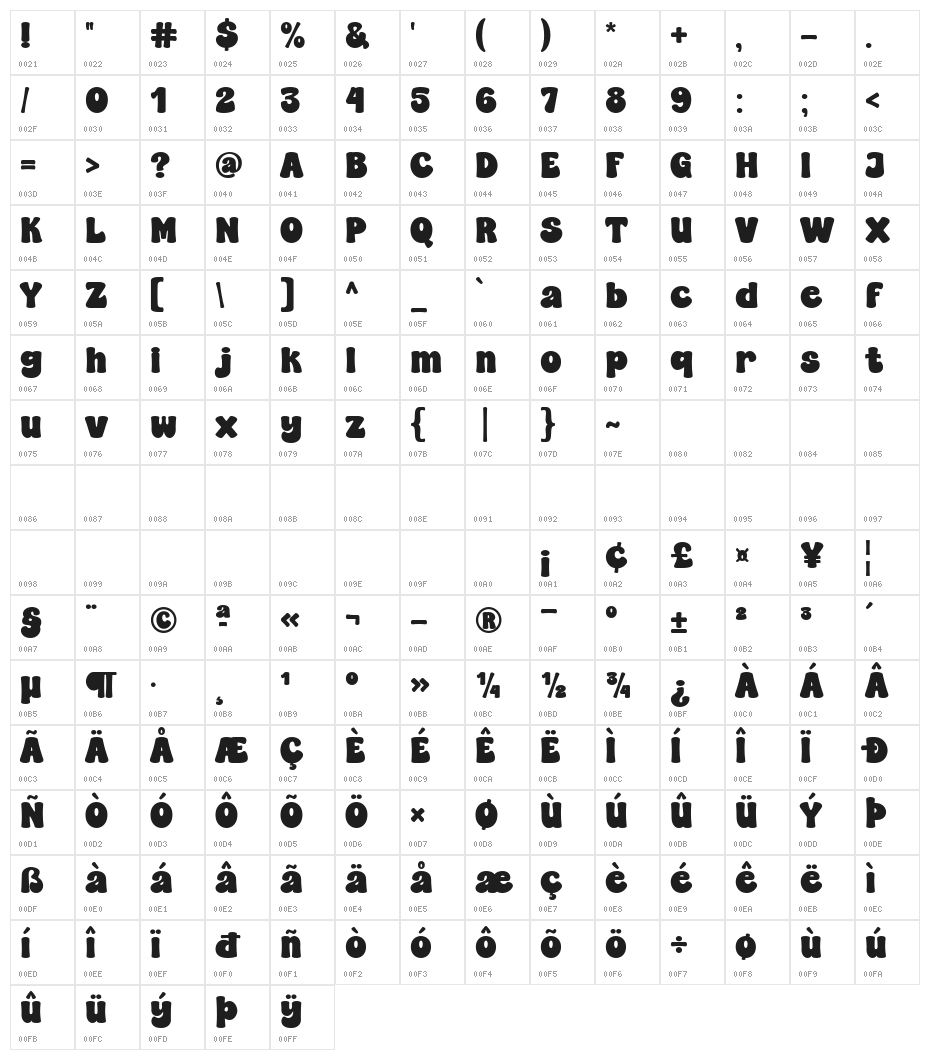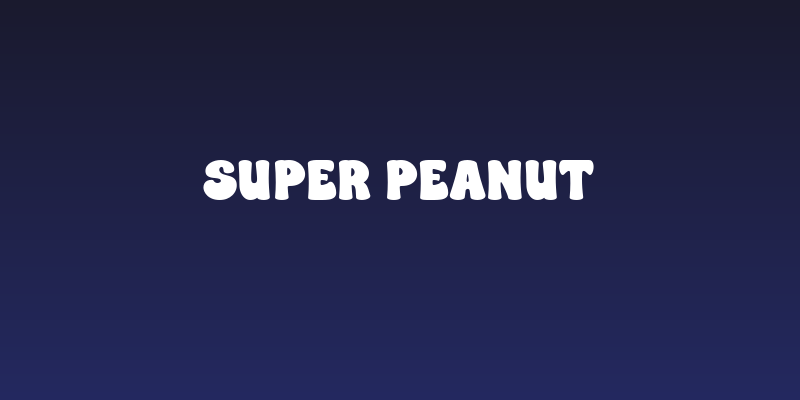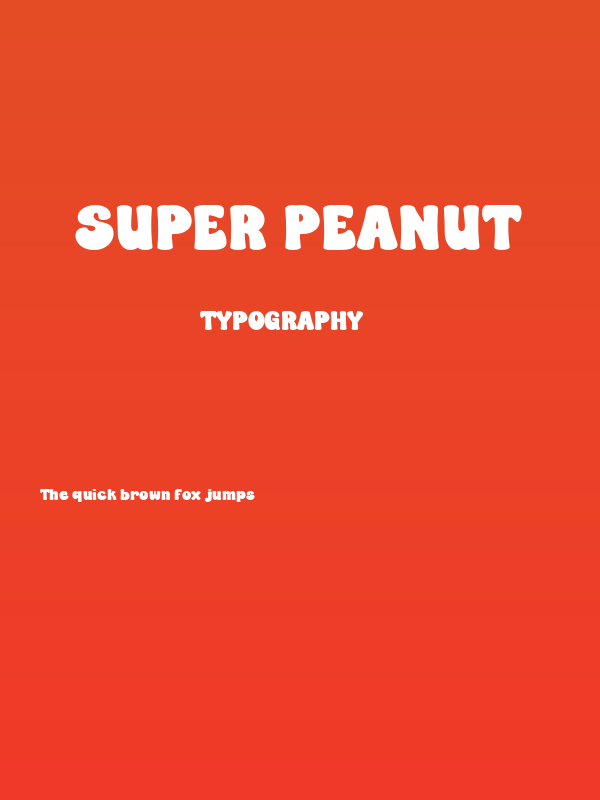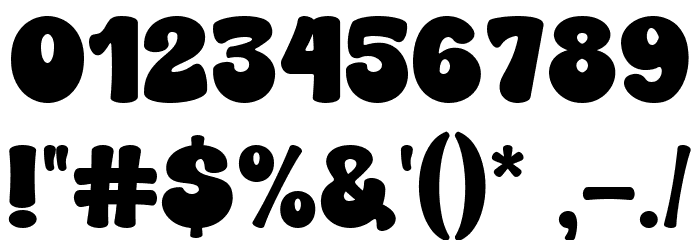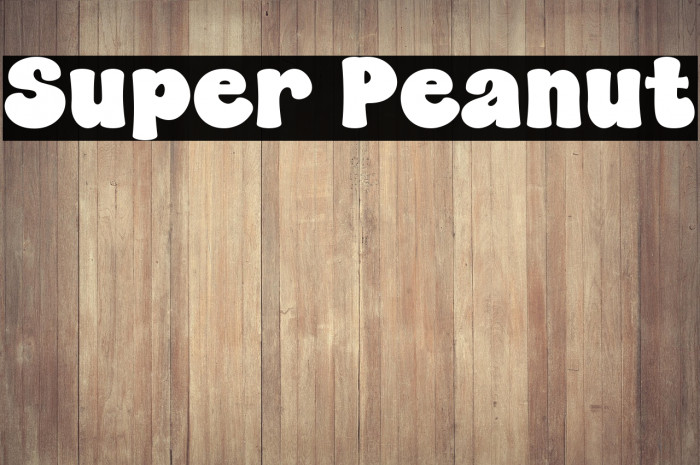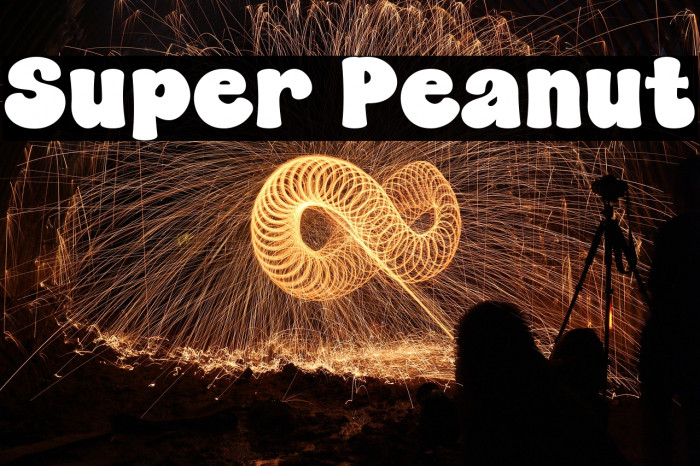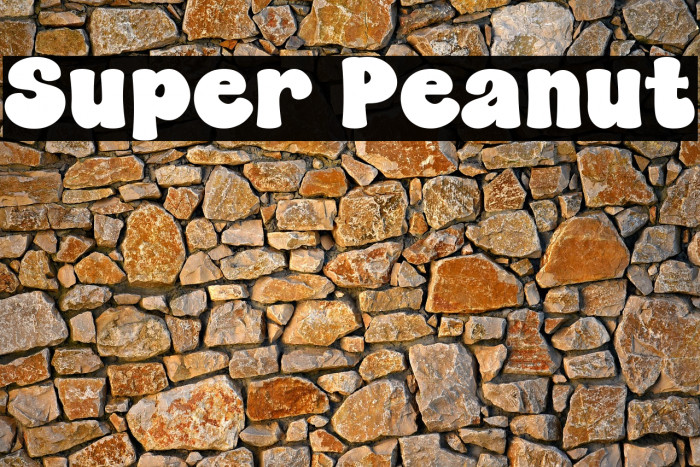
Super Peanut Font
Super Peanut Description
This playful and bold font features rounded, bubbly characters that exude a sense of fun and whimsy. The letters are thick and have a soft, inflated appearance, making them stand out with a friendly and approachable vibe. The font maintains a consistent weight throughout, with smooth curves and a slightly condensed width that adds to its charm. The numbers and special characters follow the same playful style, ensuring a cohesive look across all text elements. This font is perfect for projects that aim to convey a sense of joy and creativity.
| Proposed Projects | Ideal for children's books, playful branding, party invitations, and creative posters. |